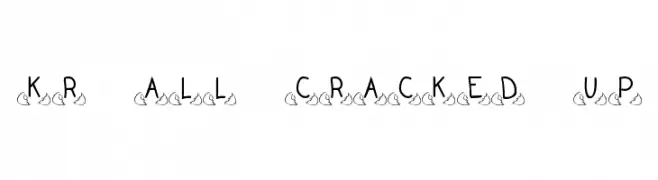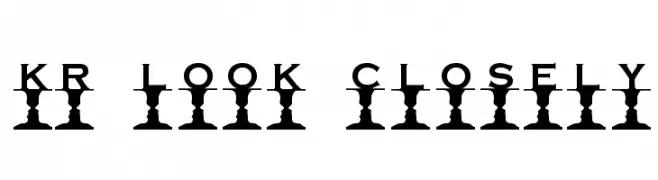
A whimsical font with letters inside cartoon chef hats, perfect for playful designs.
A playful, school-themed decorative font with bold, blocky letters.
A playful, birthday-themed decorative font with numbers adorned with festive elements.
A playful decorative font with a cracked egg motif on each character.
A festive, decorative font with New Year's themed illustrations.
A bold, decorative font featuring chess piece silhouettes integrated into each character.
A playful, monster-themed decorative font with bold characters.
A decorative font with cartoon-style wild west characters.
A playful font with shovel and sand motifs integrated into each character.
A playful, comic-style display font with a hand-drawn appearance.